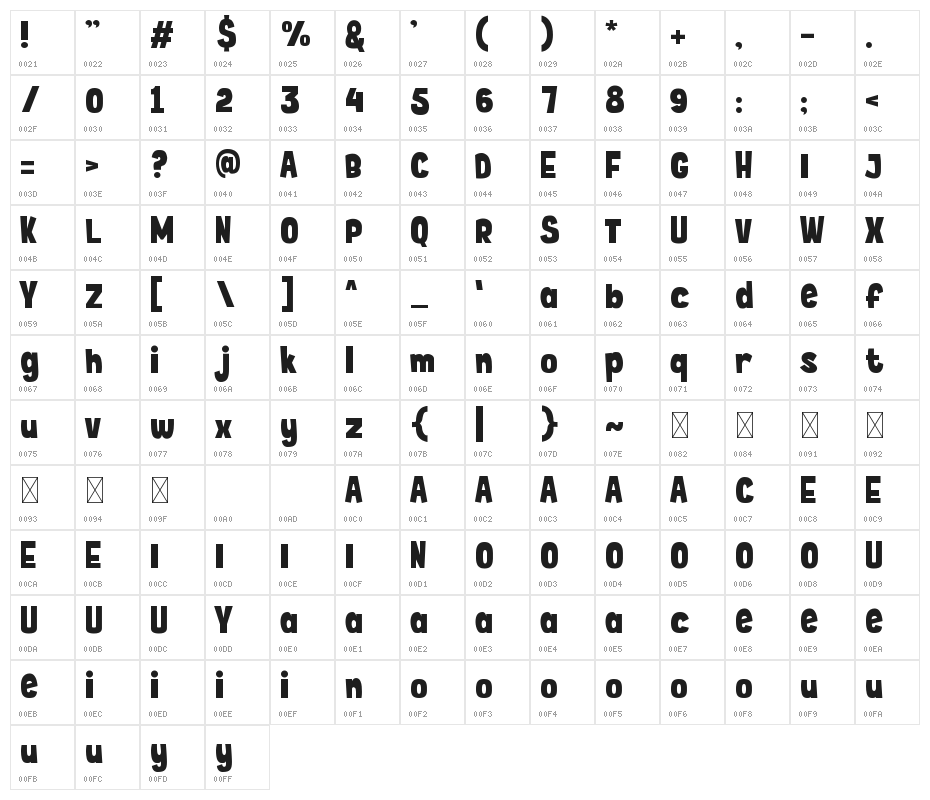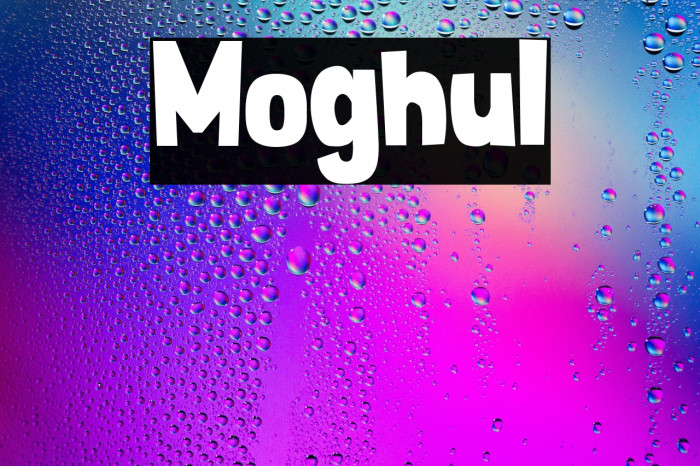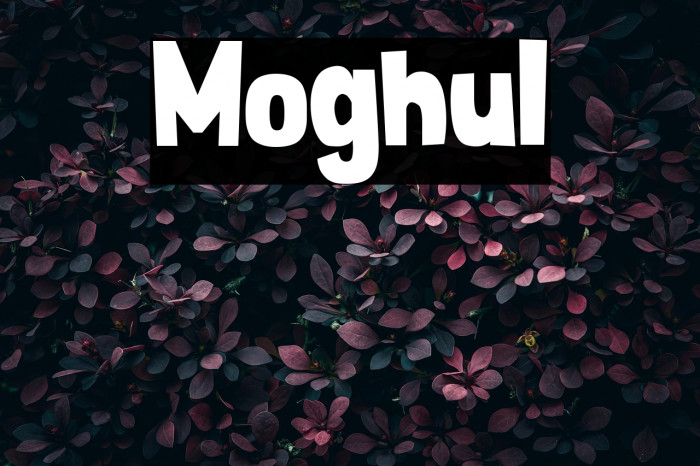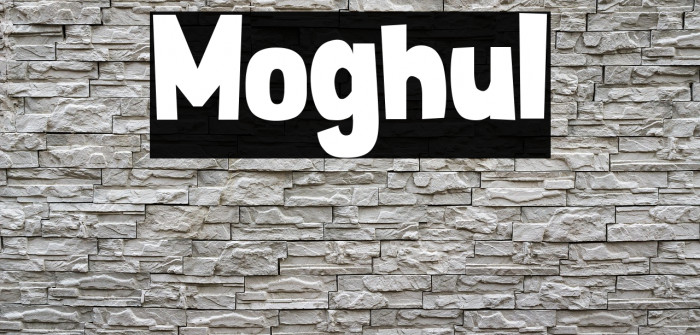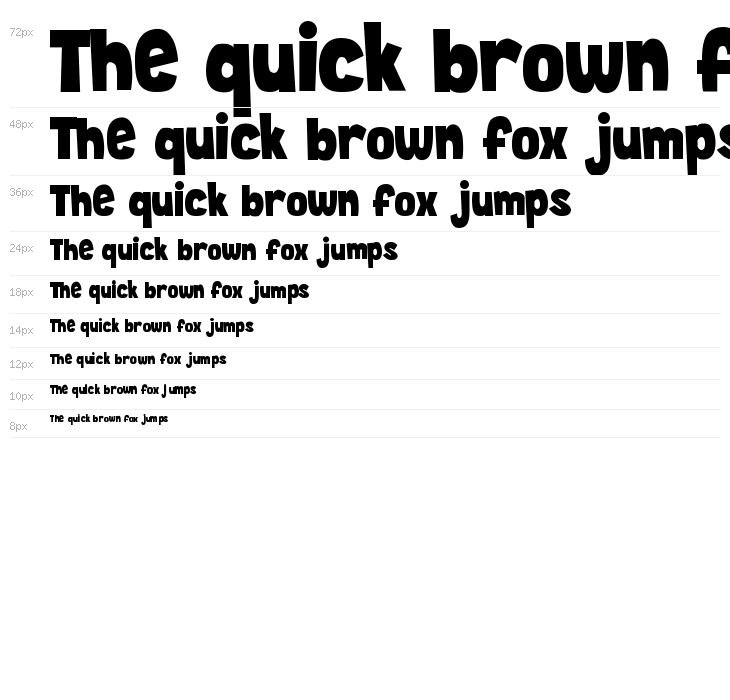
Moghul Font
| Overall Style | Playful, Cartoonish, Decorative |
| Use Case | Headlines, Posters, Logos, Children's materials |
| Proposed Projects | Children's books, posters, comic titles, party invitations, branding for playful products. |